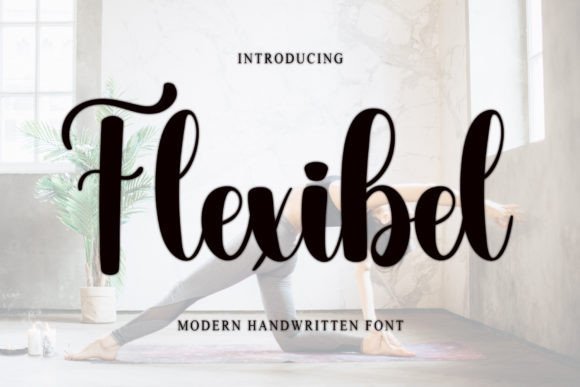
When Words Become Art
As a designer, there’s nothing quite like the thrill of bringing a project to life. It’s that moment when words transform into a visual masterpiece, and the world seems to come alive with every brushstroke, every curve, and every flourish. For many of us, it’s the handwritten touch that makes a design truly special – and that’s where Flexibel Font comes in.
This stunning handwritten font is more than just a stylish addition to your toolkit – it’s a key to unlocking the full potential of your projects. With its contemporary atmosphere and impeccable form, inspired by the timeless classics of calligraphy, Flexibel Font is the perfect companion for designers seeking to elevate their work to new heights.
Flexibel Font Key Features
- Unique Characteristics: Flexibel Font features a unique blend of modern and classic elements, with subtle irregularities that give it a human touch, making it perfect for creative and design-intensive projects.
Designer Review: Flexibel Font
As a designer, I’m always on the lookout for fonts that can add some personality to my projects. Flexibel Font is one of those fonts that caught my attention, and I must say, it has its good and bad sides. Let’s dive into the details.
- Flexibel Font has a unique, playful vibe that can add a touch of whimsy to your designs.
- The font is highly customizable, with a wide range of weights, styles, and font sizes to choose from.
- It’s highly legible, making it perfect for body text and readability-focused designs.
- Flexibel Font can be a bit too playful for more formal or corporate designs.
- The font’s irregularities can make it difficult to use in smaller text sizes or when precision is crucial.
- The font family is relatively small, which may limit its versatility in certain design projects.
Overall, Flexibel Font is a solid choice for designers who want to add some personality to their projects without going over the top. While it may not be suitable for every design style, it’s definitely worth considering for projects that require a playful touch.
Tips for Getting the Most Out of Flexibel Font
Use Flexibel Font in conjunction with other design elements to create a cohesive and visually appealing design.
Experiment with different font styles and sizes to achieve the desired effect.
Use Flexibel Font in a variety of contexts, from headings and titles to body text and captions.
Flexibel Font is ideal for use in:
Brochures and flyers
Business cards and resumes
Websites and landing pages
Social media graphics and posts
Alternatives to Flexibel Font for Designers
Open Sans is a popular sans-serif font designed by Steve Matteson. It is suitable for body text and headings, making it a versatile choice for digital design projects. Compared to Flexibel Font, Open Sans is more modern and sleek, while Flexibel Font has a more playful and casual feel. Open Sans is ideal for use in digital interfaces, such as websites and mobile apps.